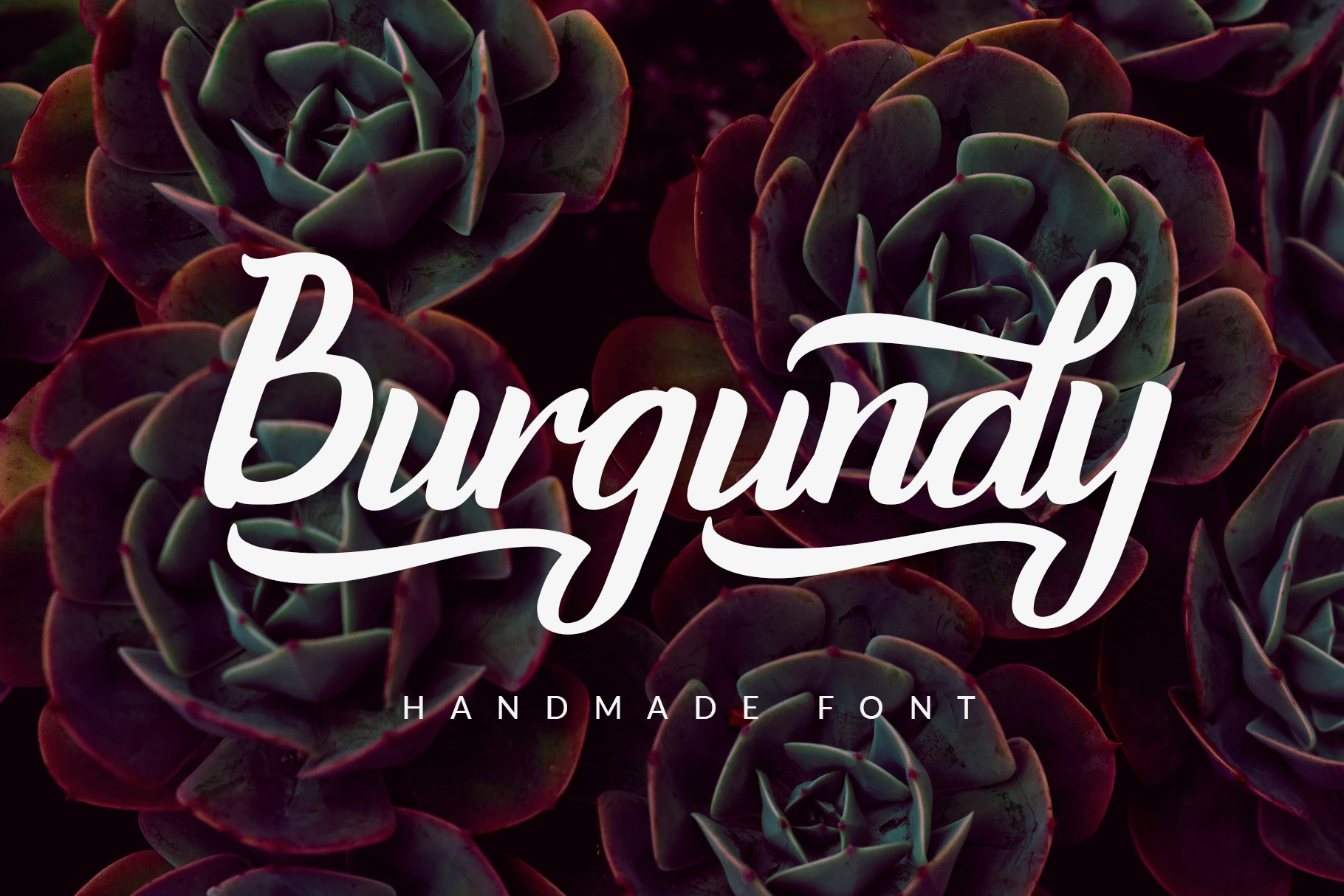
Burgundy - Handmade Font
Create a Extraordinary Typography / lettering results by using Burgundy - Handmade Font. Best match for logos, header, Titles, Prints & other Creative process possibilities.
- Ton of glyphs included
- Good pair with other font
- Clean Results